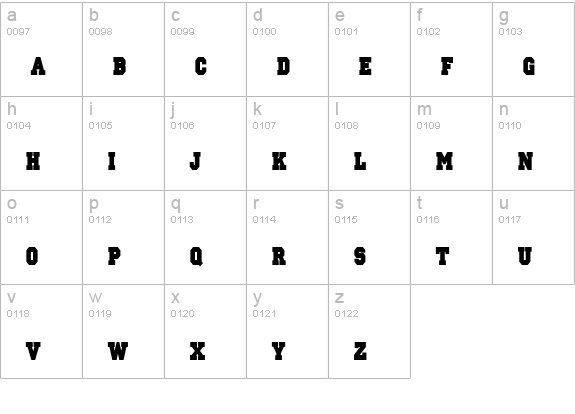
Princeton solid Condensed Normal is the standard, neutral, condensed-width variant in the Princeton typeface family \xE2\x80\x94 well suited to general body text, paragraphs, and standard typographic work.
Princeton Solid Condensed Normal font is a sleek and modern typeface that exudes sophistication and professionalism. Its clean lines and well-defined shapes make it perfect for a wide range of design projects, from branding to editorial design. The condensed style of this font allows for efficient use of space while maintaining readability and impact. What sets Princeton Solid Condensed Normal font apart is not only its stylish appearance but also its versatility. Whether you're creating a sleek logo, designing a polished website, or crafting an elegant invitation, this font will elevate your design to the next level. The best part is that Princeton Solid Condensed Normal font is available for free download at FontsMarket.com. So you can easily incorporate this stunning typeface into your projects without any hassle or cost. Don't miss out on the opportunity to enhance your designs with this exquisite font today!